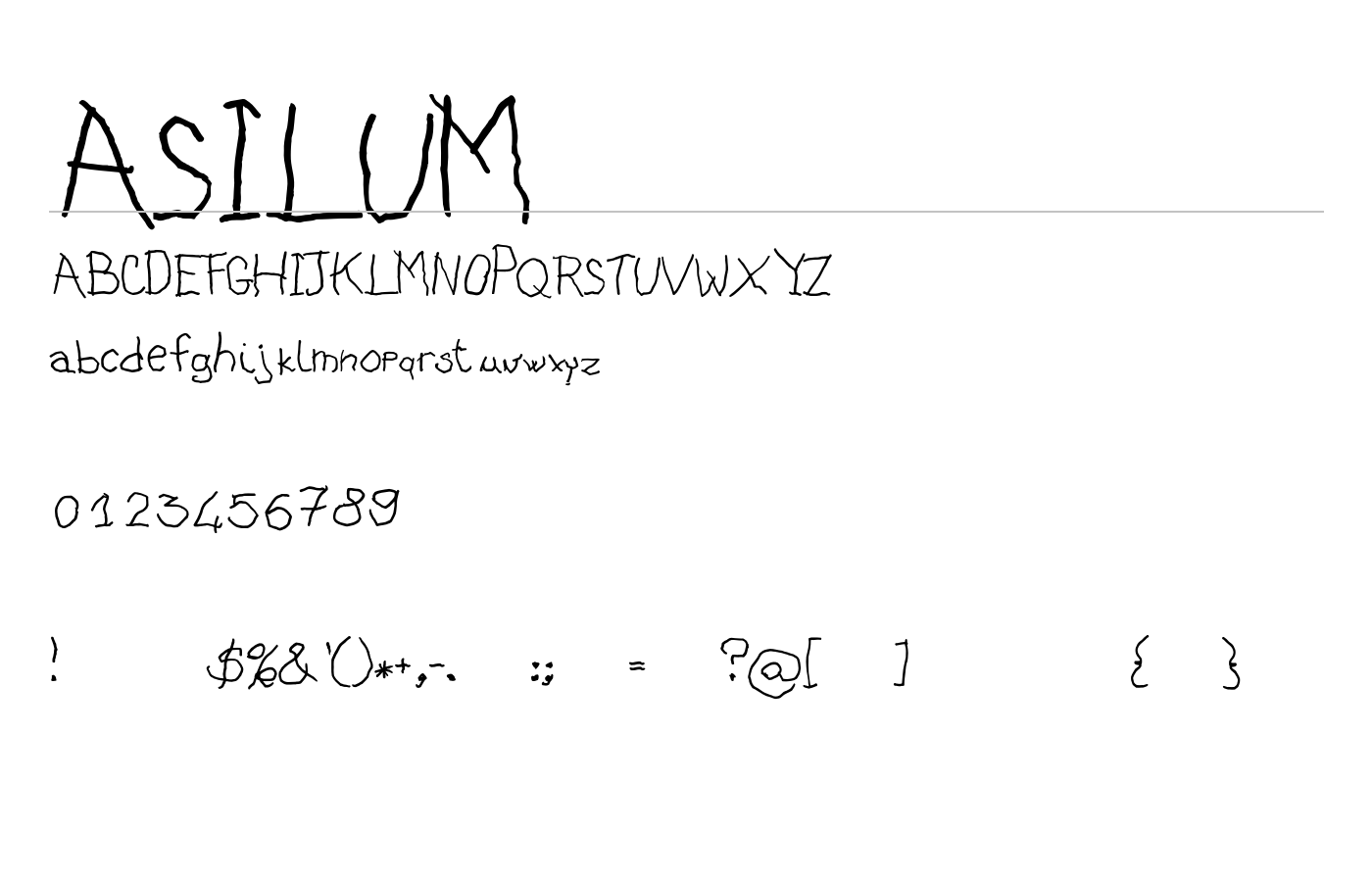
ASILUM is a quirky, handwritten sans serif font with narrow, irregular letterforms that give it a raw, edgy character. Its playful and imperfect strokes make it ideal for creative projects needing a personal and unconventional touch, such as posters, indie branding, or expressive editorial layouts. This font communicates a sense of individuality and artistic freedom, perfect for designs that want to stand out with a hand-crafted feel.
ASILUM Font
About ASILUM Font